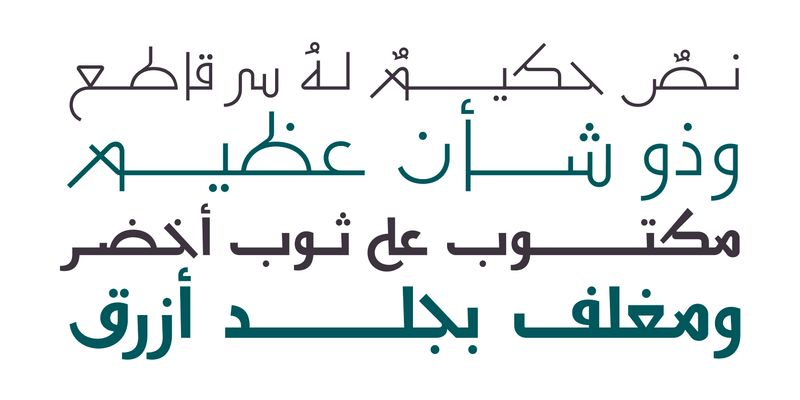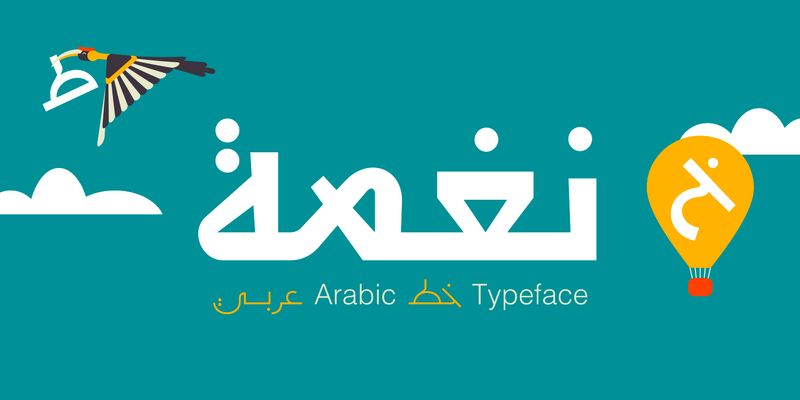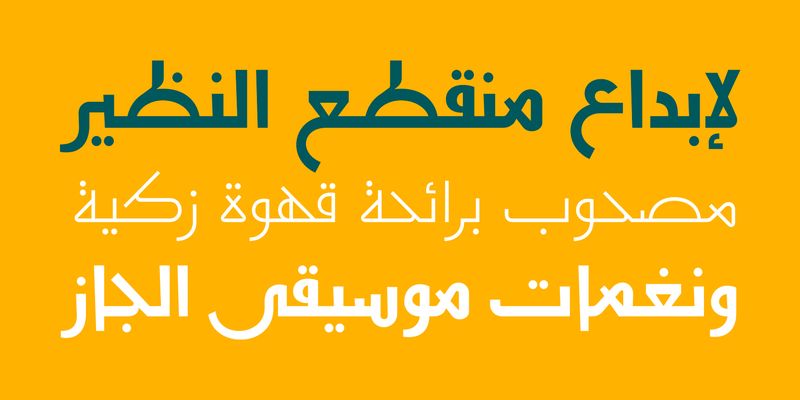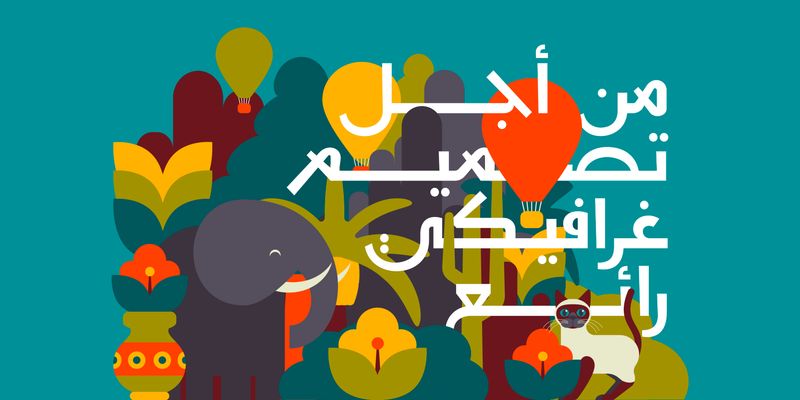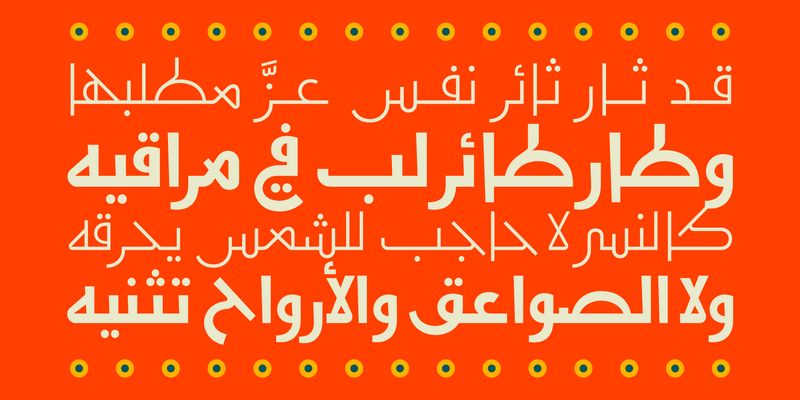
Naghamah (Arabic for “Tone”) is an energetic Arabic display font crafted with lively, joyful letterforms that instantly uplift any design. Its expressive personality makes it a perfect choice for branding, infographics, editorial layouts, and creative visual storytelling.
Available in Regular and Bold, along with a versatile stylistic set, Naghamah brings clarity and charm to both digital and print environments. It performs beautifully across web, print, and mobile applications, making it a reliable asset for modern creative workflows.